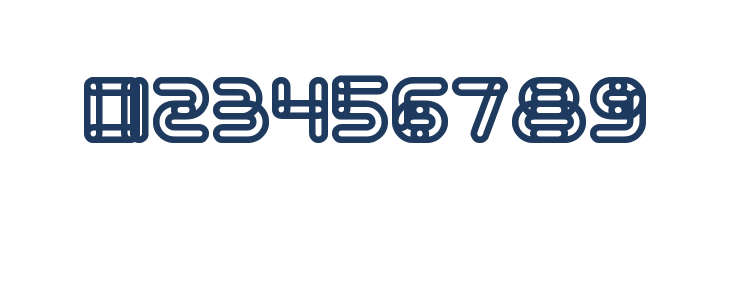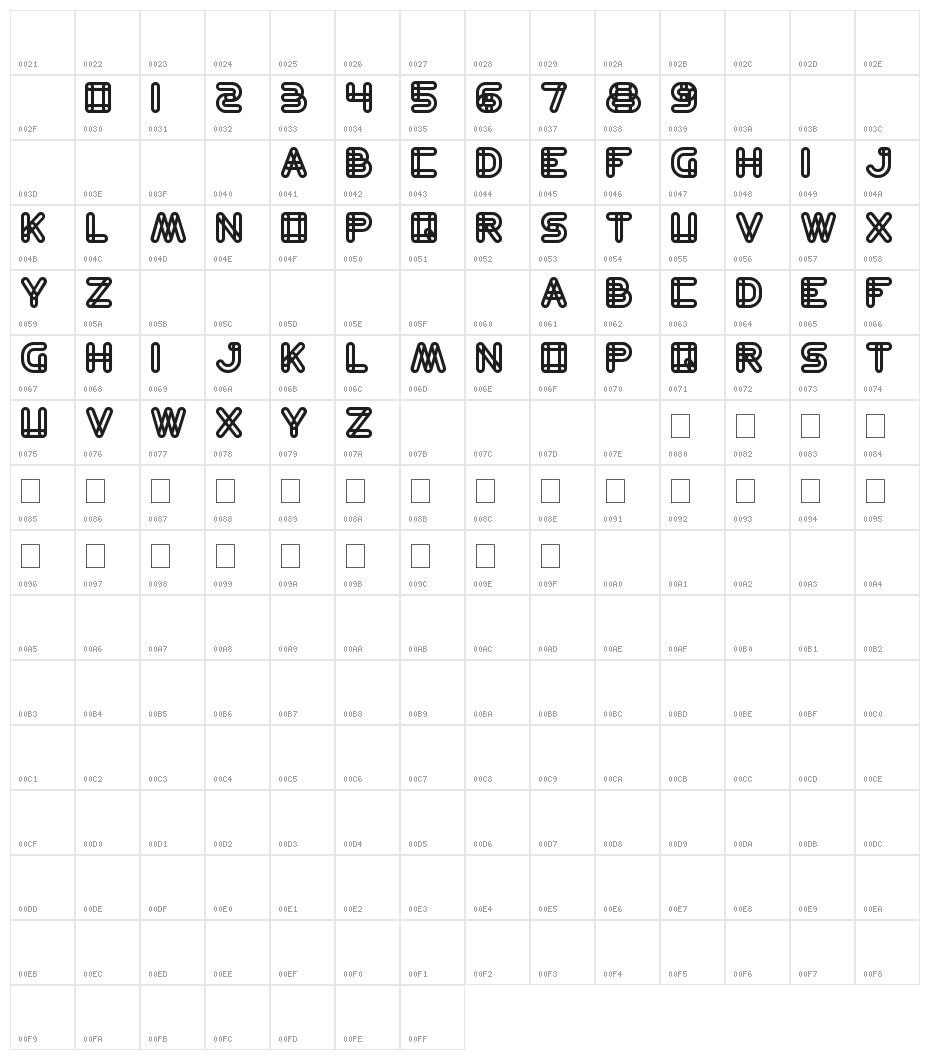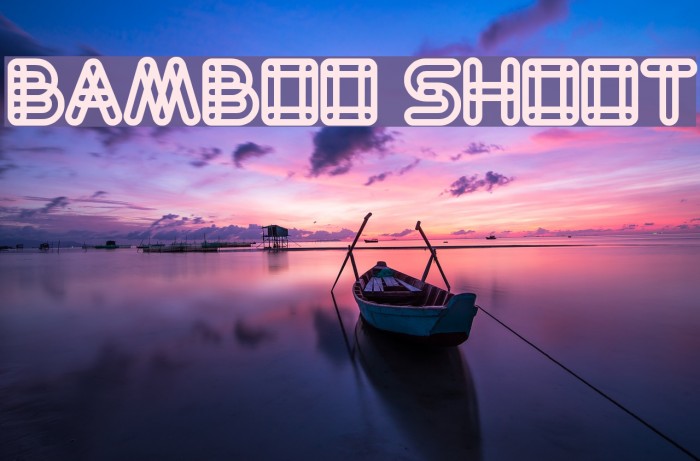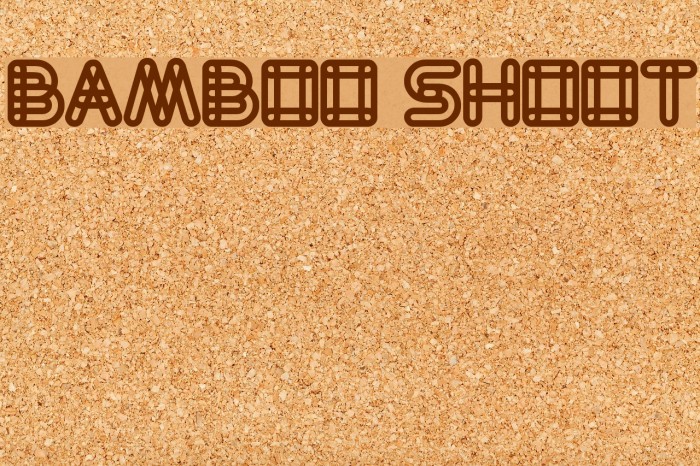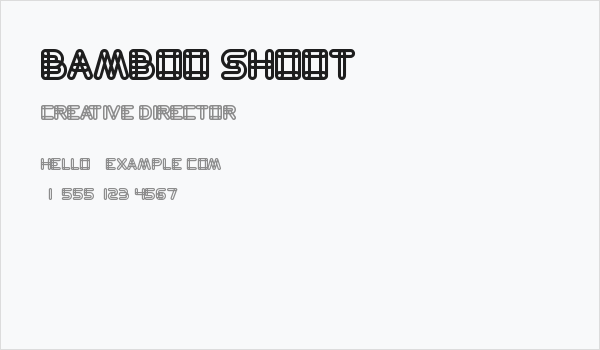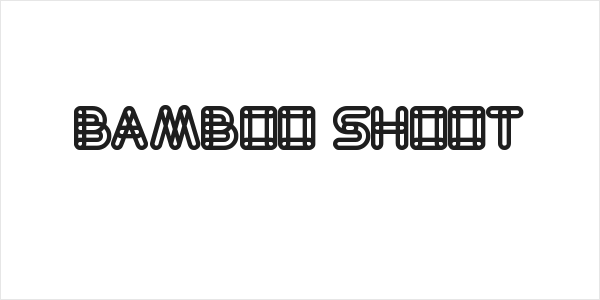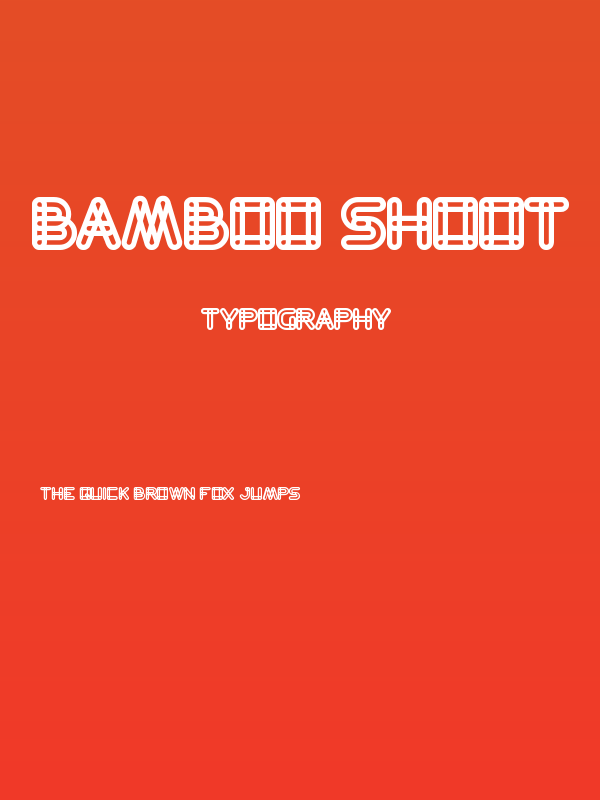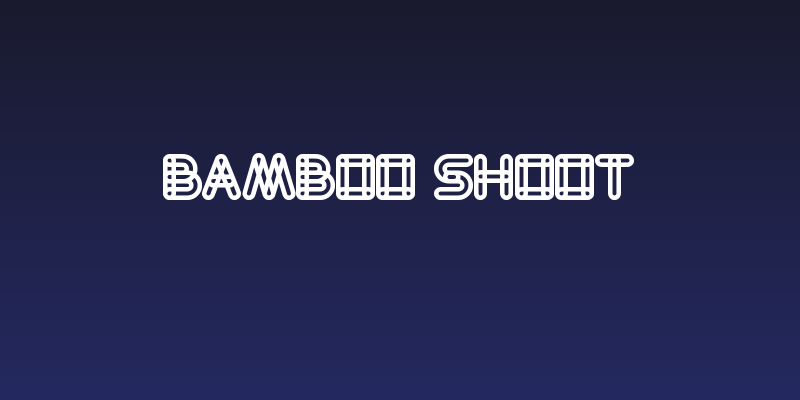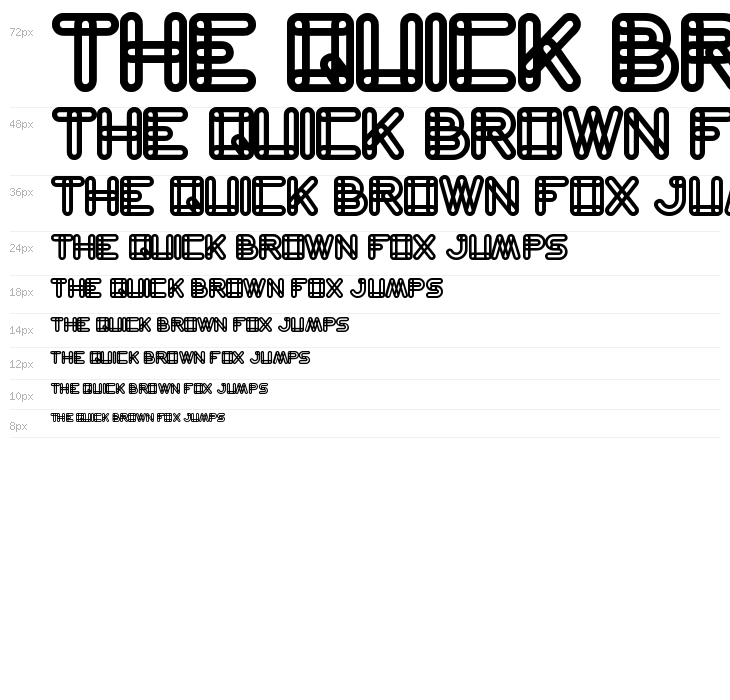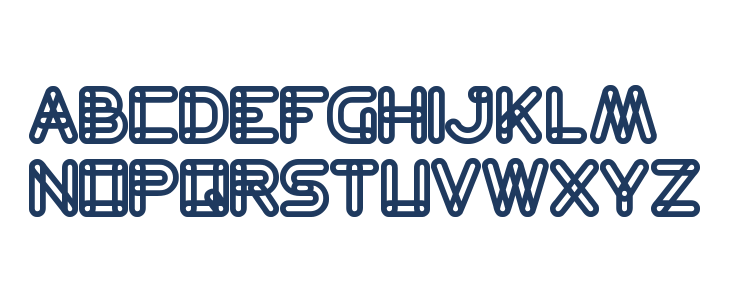
Bamboo shoot Font
Bamboo shoot Description
This font features a unique and playful design, characterized by its hollow, tubular structure that resembles bamboo shoots. Each letter is constructed with bold, rounded lines that intersect and overlap, creating a sense of depth and dimension. The consistent thickness of the strokes and the geometric precision give it a modern and futuristic appeal. The font maintains a uniform width across all characters, ensuring a balanced and cohesive look. Its distinctive style makes it ideal for eye-catching designs where creativity and innovation are key.
Proposed ProjectsIdeal for branding, packaging, posters, and any project requiring a bold, creative touch.